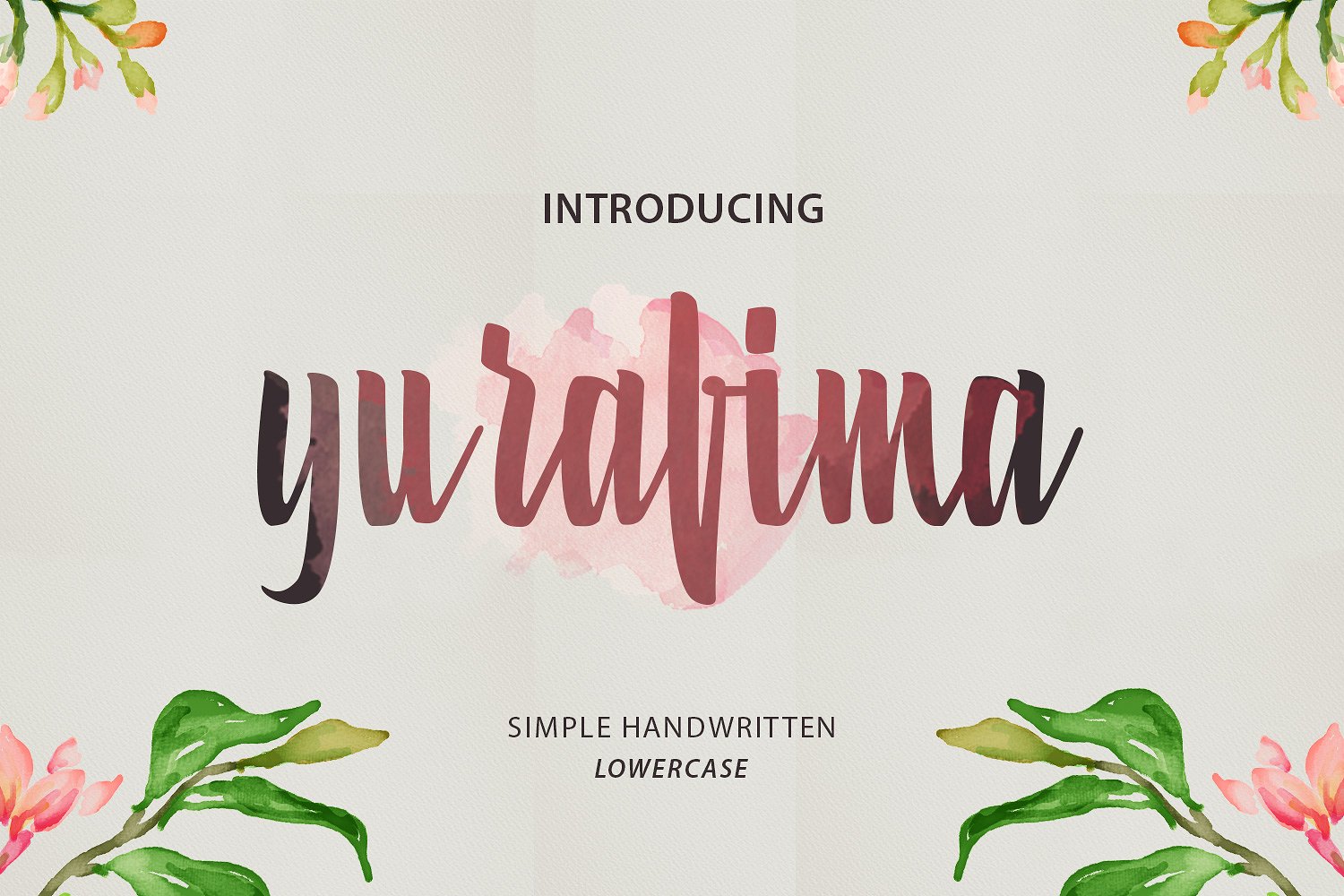
Yurafima Script Font
Yurafima font only lowercase, perfect for: poster, wedding, branding, logo, fashion, apparel, letter, invitation, stationery, etc.
| Classification: | Calligraphy Fonts, Handwritten Fonts, Script Fonts |